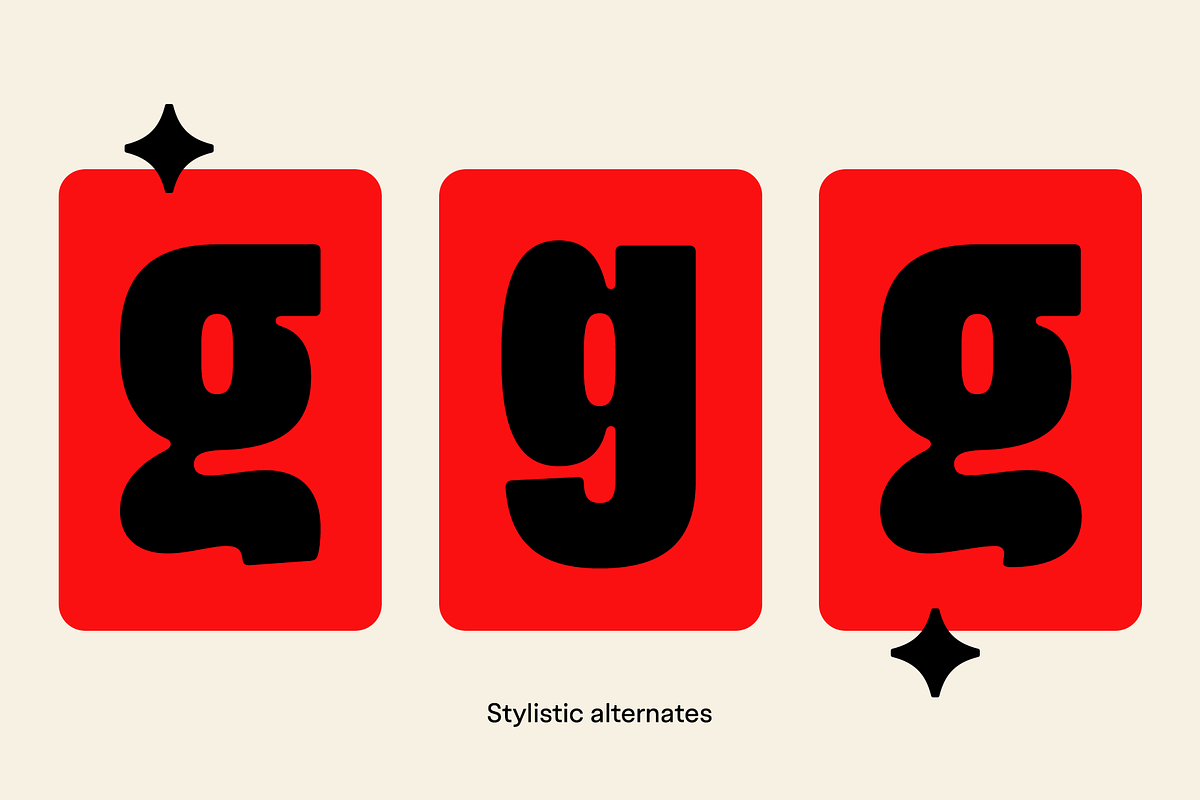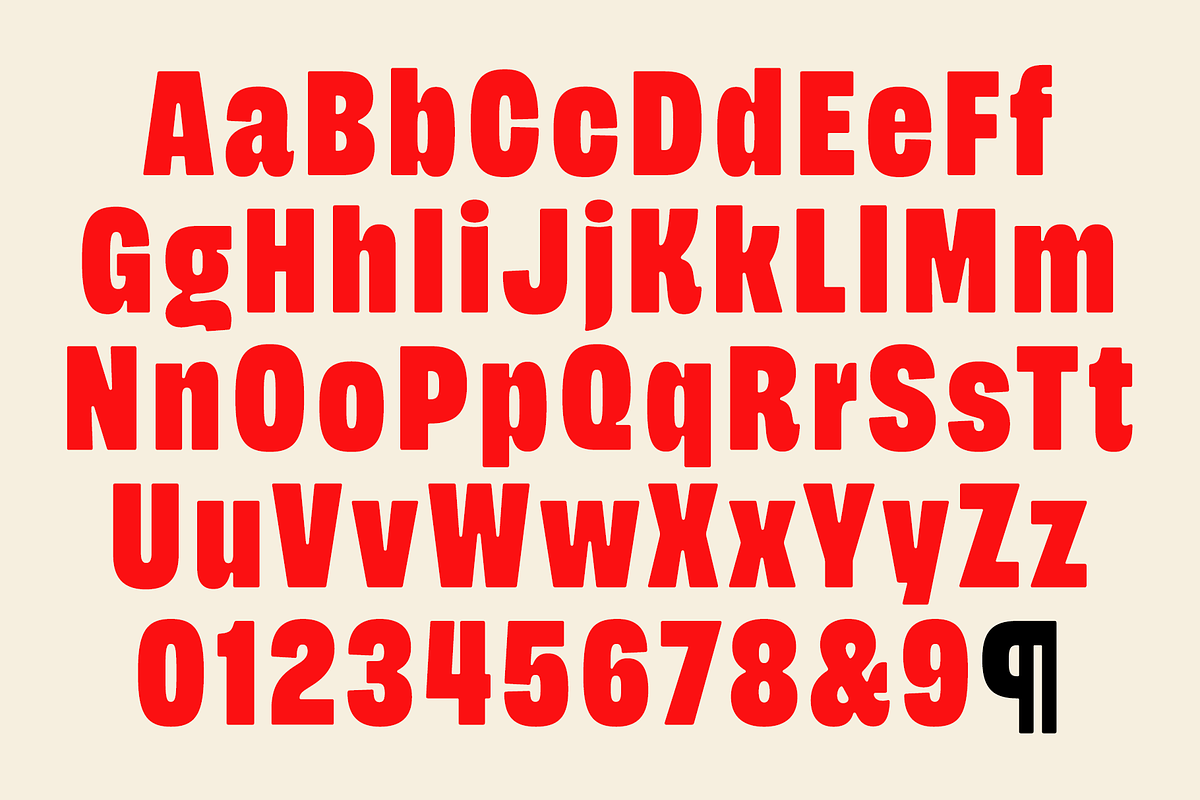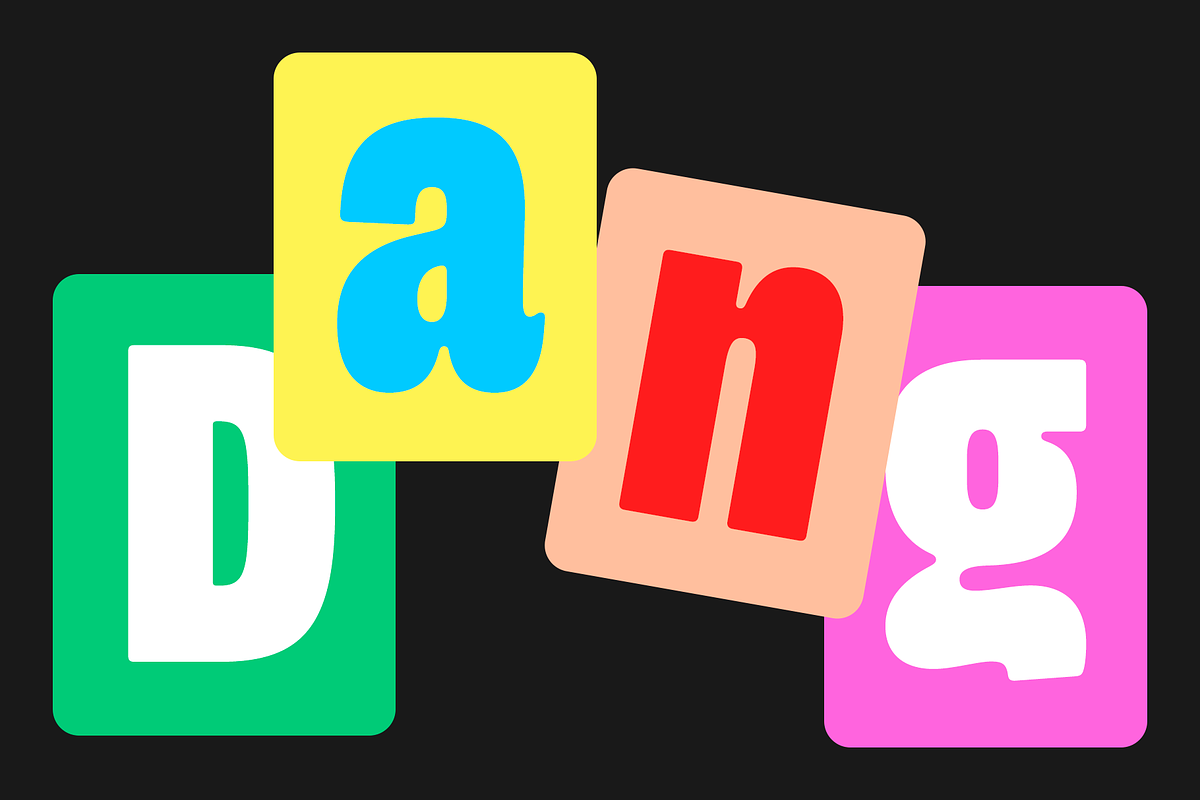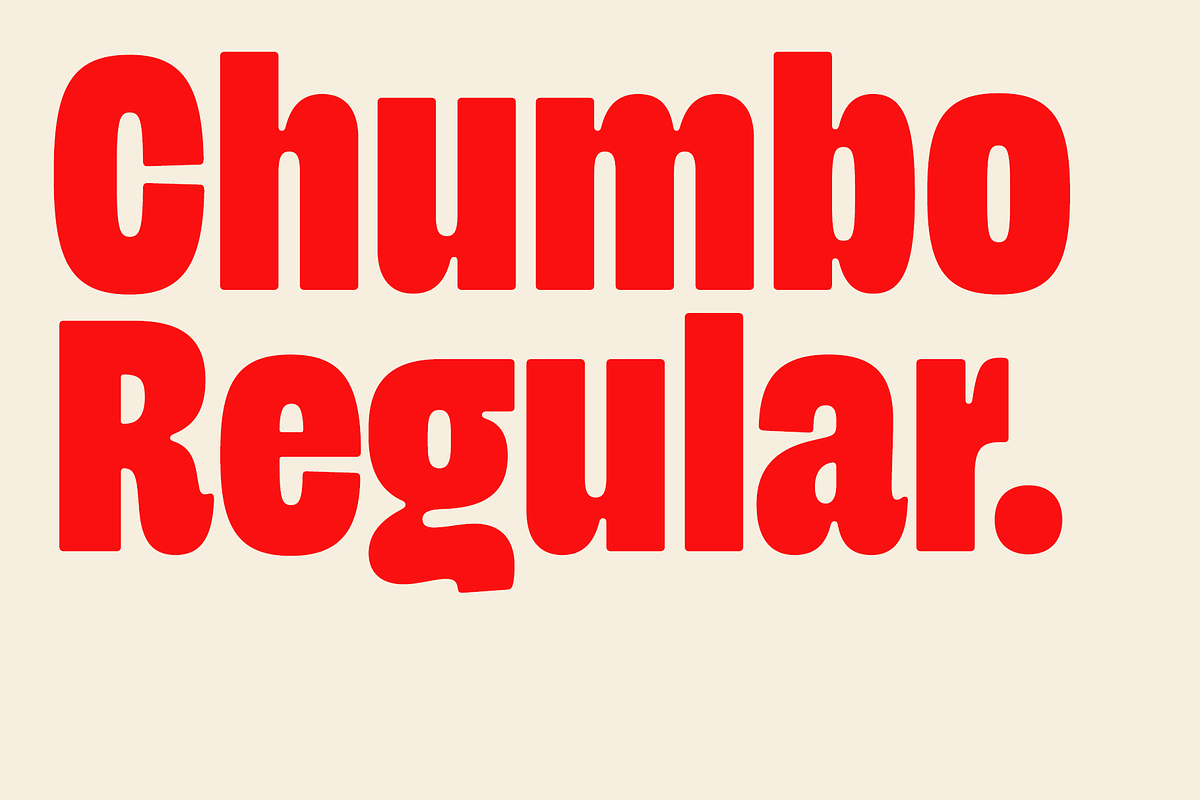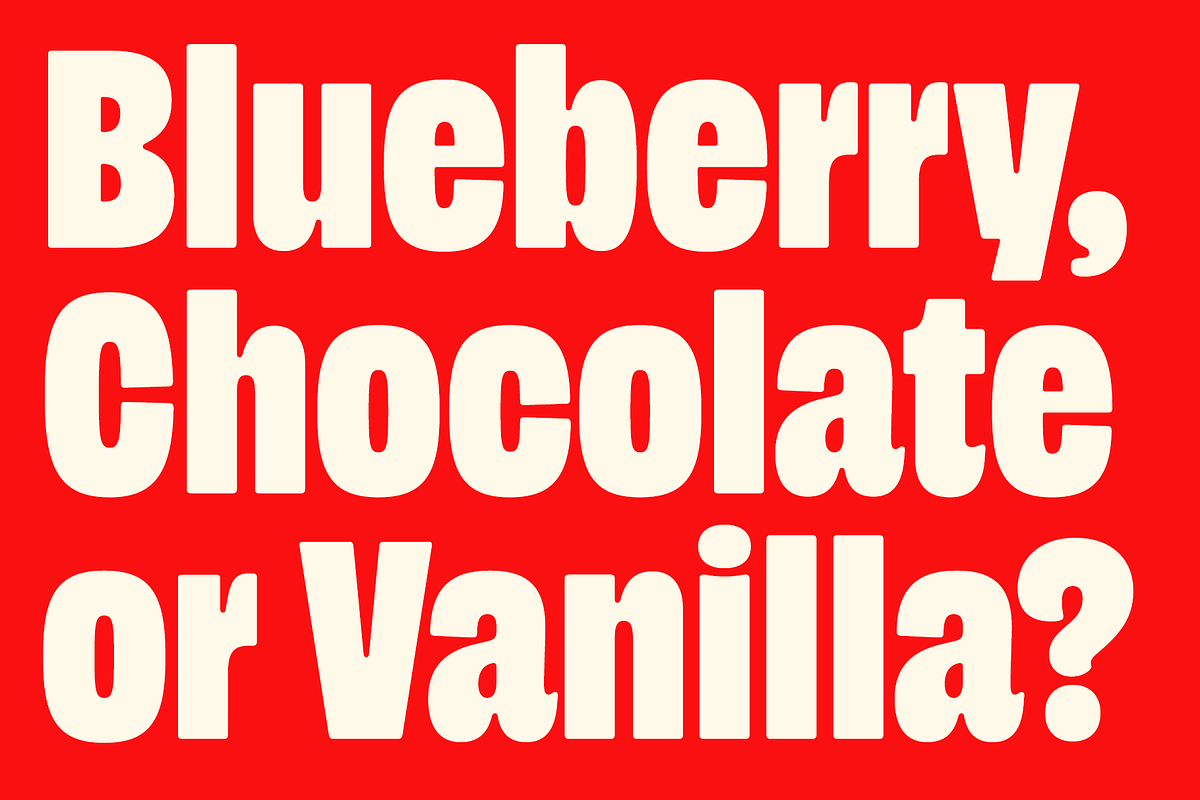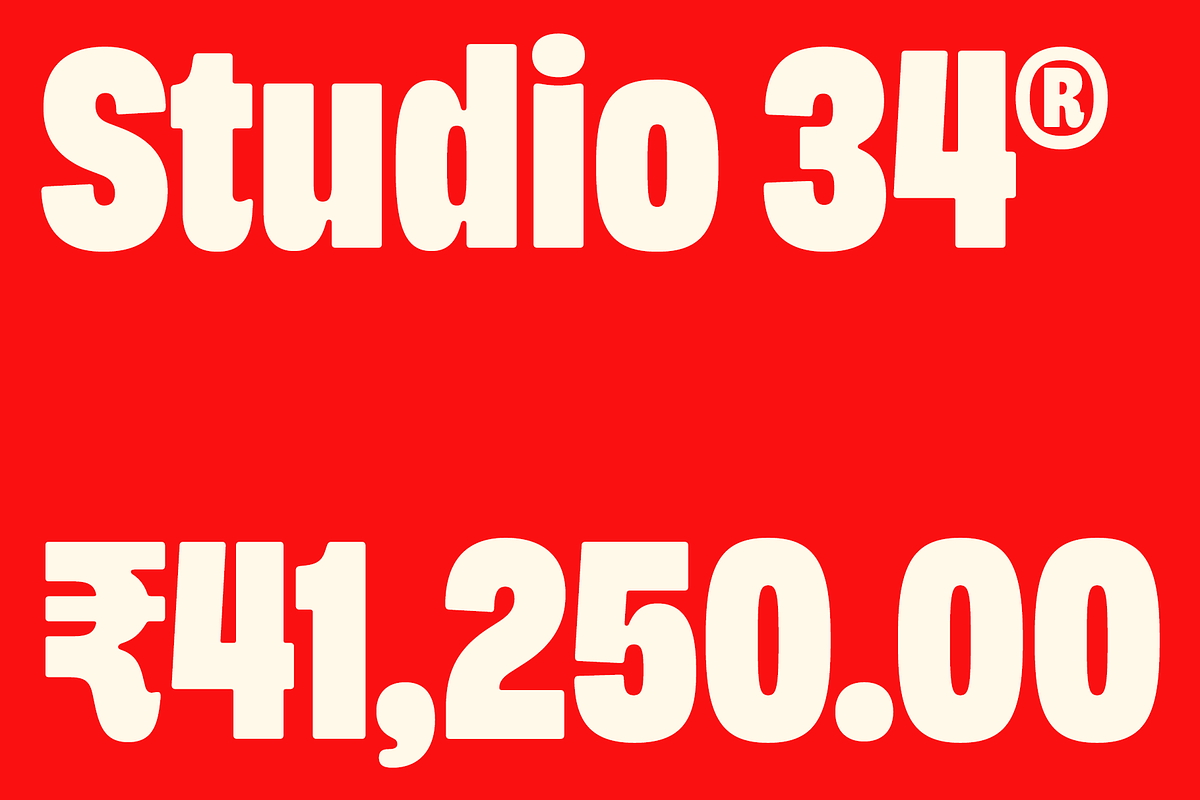
Chumbo
Channeling the heft of classic wood type, Chumbo is dense and chunky without feeling heavy-handed. By pairing a massive skeleton with softened edges, it keeps headlines solid and friendly. Chumbo supports over 200 languages and will bring all the personality to your next project. Itended to be set big it actually reads surprisingly well at smaller sizes. Have fun!